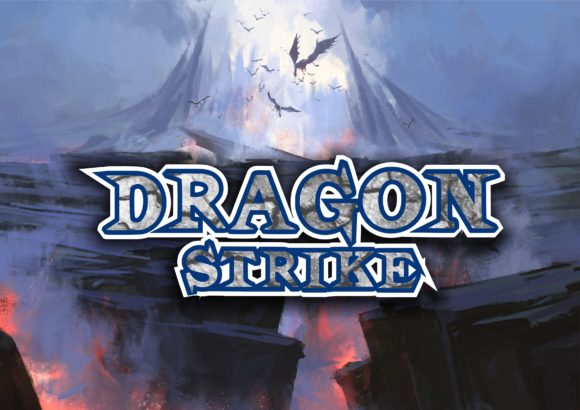
Unleash the Dragon Strike: A Display Font of Fire and Power
In a world of ordinary fonts, Dragon Strike emerges as a blazing comet, a font of fire and power, ready to ignite your designs with its bold presence. This display font, masterfully crafted by Mas Edit, is a force to be reckoned with, commanding attention with its high weight and solid stance.
Step into a realm of awe-inspiring design possibilities with Dragon Strike, the font that breathes life into words. Its striking, bold structure lends an aura of authority and determination to your projects, leaving an unforgettable impact on your audience. Let Dragon Strike be your weapon of choice in the design arena, for it is a font that commands respect and admiration.
With its unwavering support for Dragon characters, Dragon Strike opens up a world of creative opportunities, allowing you to effortlessly weave enchanting tales and captivating messages that transcend language barriers. Its firmness and stability lend a sense of unwavering confidence to your designs, assuring your audience of your unwavering commitment to excellence.
Enrich your font library with the indomitable spirit of Dragon Strike, a font that ignites passion and propels your designs to new heights. Whether you're crafting brochures, posters, logos, or any other visual masterpiece, Dragon Strike will leave an indelible mark, captivating your audience with its fierce beauty and unwavering presence.